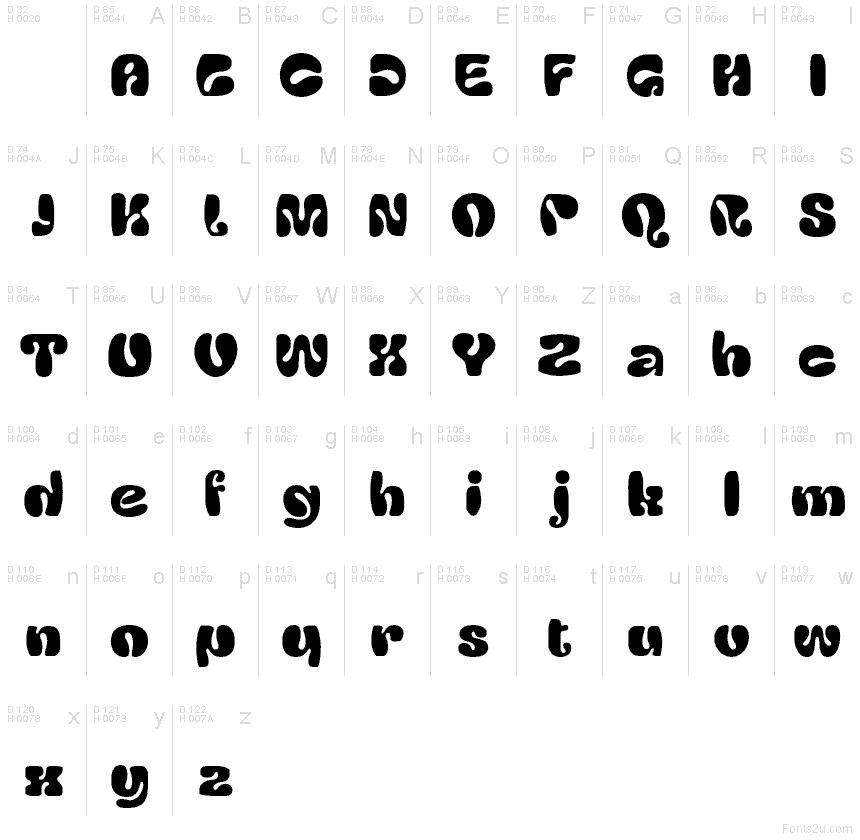
CSMochaDrawn-Regular Demo
CS Mocha Drawn font by Craft Supply Co. is a free bold groovy display font that leans into an inky, hand-drawn swell. Built within the CS Mocha family, its blobby curves, soft pooled counters, and slightly wavy strokes create a syrupy rhythm—like brush lettering soaked in espresso. The weighty forms read loud and warm at a glance, while the irregular edges keep it playful rather than heavy.
Using CS Mocha Drawn, headlines pop on coffee packaging, café menus, retro posters, event flyers, social banners, and sticker merch. The generous curves cluster beautifully in short words, so keep copy tight and scale it big for maximum impact. Pair this free font with a clean, light geometric sans to let the gooey letters take the spotlight without losing clarity.
CS Mocha Drawn Demo